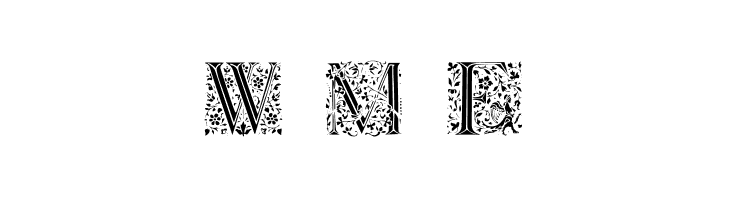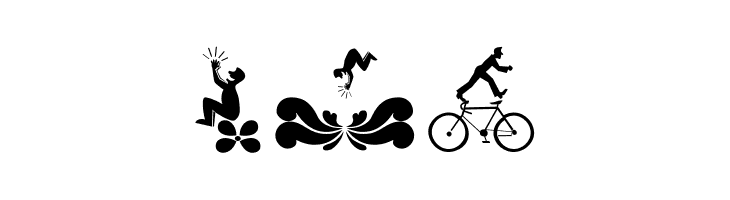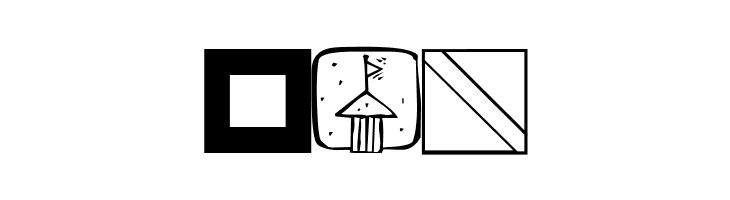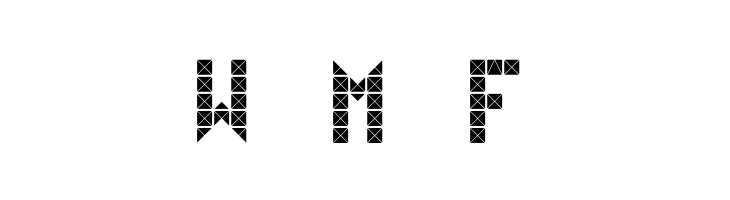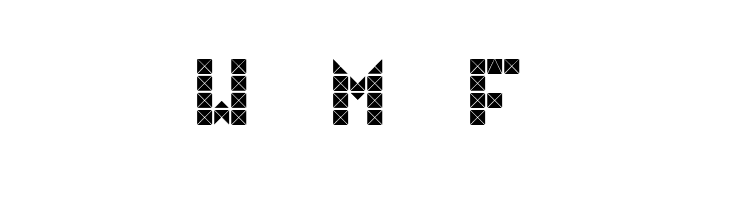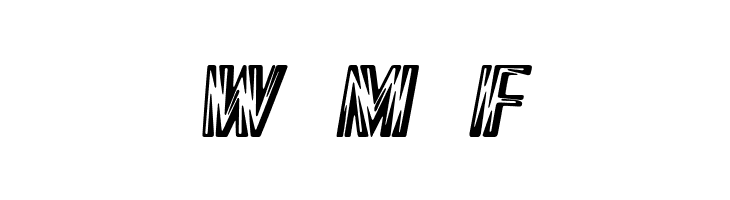
A display font made of diverse flag icons and symbols.
A bold, dynamic font with a three-dimensional effect and energetic design.
A bold, geometric font with a mosaic-like pattern.
A geometric, mosaic-style font with a modern and energetic appearance.
A bold, geometric font with a mosaic pattern, ideal for decorative use.
A bold, geometric font with a mosaic-like appearance.
A decorative font with geometric, mosaic-like characters.
A whimsical collection of dynamic pictograms depicting motion and activity.
Energetic pictogram font with action-themed icons.
An ornate, floral-themed decorative font with intricate botanical patterns.